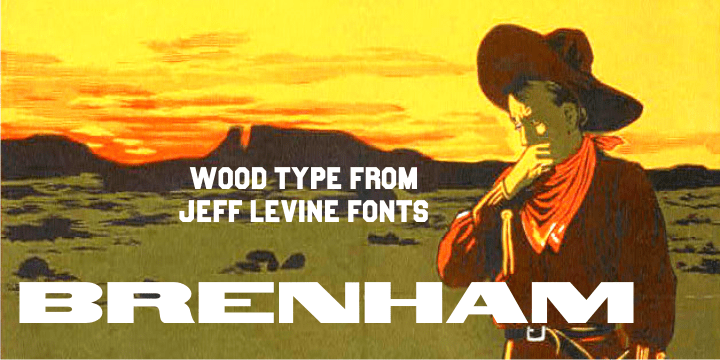
Brenham
Before typography had 'rules', lettering artists set down designs that have endured as classics.
A perfect example is Brenham JNL, which was modeled after an antique wood type.
The extra elongation of some characters, the irregular shapes of others and the overall hand-made charm of the entire design makes this digital font the perfect choice for replicating broadsides, posters and anything needing a nostalgic look as if from the past.
Brenham JNL Regular by Jeff Levine Fonts